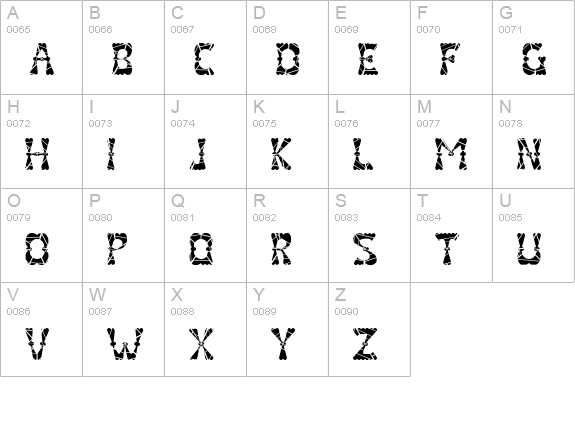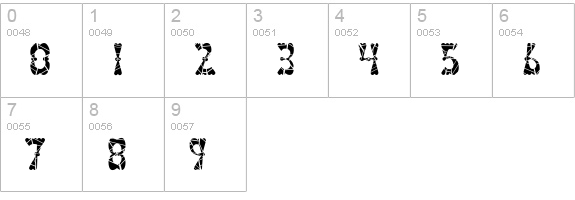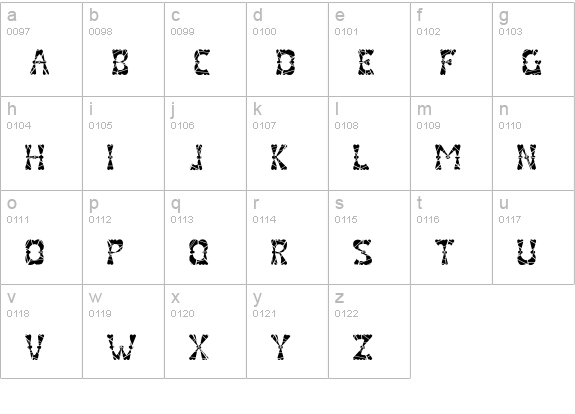
ValenteenaBroken Font Details
ValenteenaBroken font is an exquisite display typeface that exudes a unique charm with its broken yet beautiful letterforms. Designed with meticulous attention to detail, this font is perfect for adding a touch of artistic flair to your designs. With its jagged edges and irregular shapes, ValenteenaBroken font captures the essence of imperfection and brings a sense of raw authenticity to any project. Its unconventional design makes it particularly well-suited for creative endeavors, such as album covers, posters, logos, and social media graphics. This font is freely available for download at FontsMarket.com, making it accessible to designers, artists, and enthusiasts alike. Whether you are a seasoned professional or a beginner exploring the world of typography, ValenteenaBroken font provides you with a versatile tool to unleash your creativity. The rebellious nature of ValenteenaBroken font allows it to stand out from the crowd, making a bold statement in any design. It adds a touch of edginess and a hint of rebellion, injecting life into your projects and captivating your audience. Don't miss the opportunity to add this stunning font to your collection. Download ValenteenaBroken font today from FontsMarket.com and let your imagination run wild. Embrace the freedom of creativity and create captivating designs that leave a lasting impression.